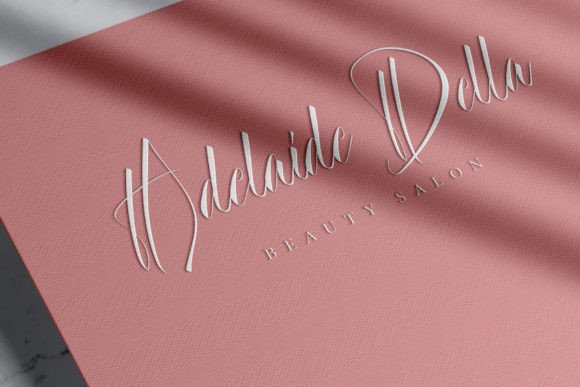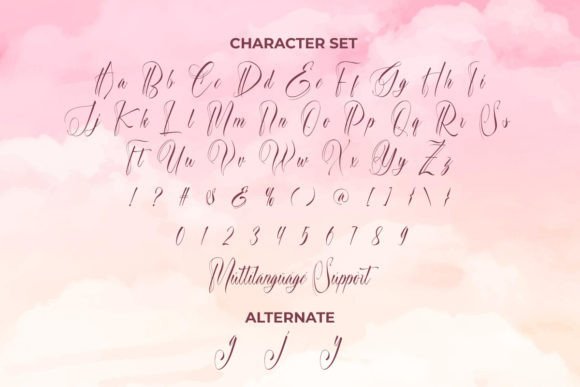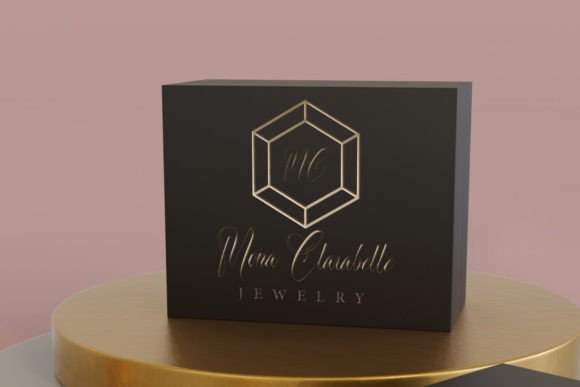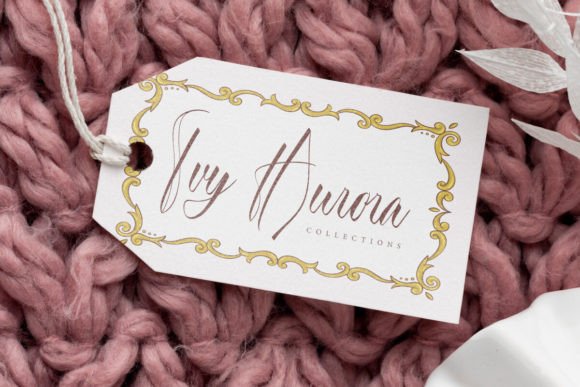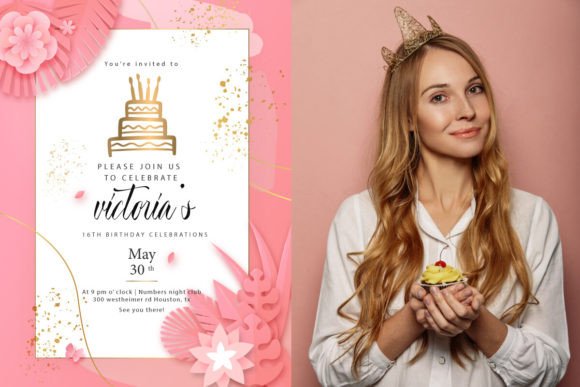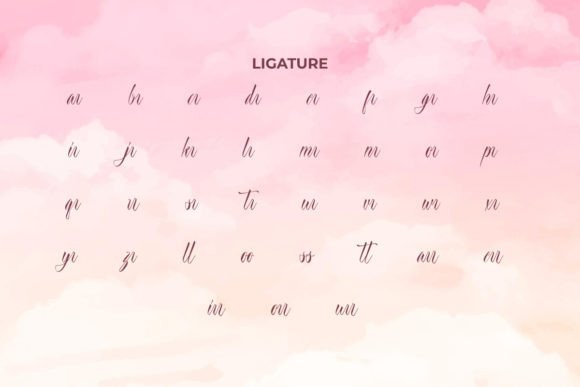
Introducing Beauty Princess Font: The Royal Treatment for Your Brand
Are you searching for a font that exudes elegance, sophistication, and a touch of royalty? Look no further than the Beauty Princess Font. This stunning script font is carefully crafted to provide a stylish and luxurious feel, making it perfect for a wide range of industries and applications.
The Beauty Princess Font: A Royal Heritage
The Beauty Princess Font is a beautiful script font that boasts a stylish and royal touch. Its carefully crafted design creates an almost flawless typeface, perfect for adding a touch of luxury to any brand or project. The font’s radiant princess aura makes it suitable for a diverse range of industries, including:
- Accessories
- Beauty clinics
- Boutiques
- Cosmetics
- Event organizers
- Fashion
- Florists
- Furniture
- Homeware
- Interior design
- Jewelry
- Perfume brands
- Printing
- Publishing
- Restaurants
- Skincare
- Spa salons
- And many more
Unleash Your Creativity with Beauty Princess Font
As a designer or crafter, you’re constantly on the lookout for unique and captivating typography to elevate your work. The Beauty Princess Font offers a world of creative possibilities, allowing you to add a touch of sophistication and glamour to your projects. Whether you’re designing a logo, brochure, or website, this font is sure to make a lasting impression.
Key Features of Beauty Princess Font
So, what makes the Beauty Princess Font so special? Here are just a few of its key features:
- Stylish and royal touch: The Beauty Princess Font boasts a stylish and royal touch, perfect for adding a touch of luxury to your brand or project.
- Carefully crafted design: The font’s design is carefully crafted to create an almost flawless typeface, ensuring a smooth and elegant reading experience.
- Radiant princess aura: The font’s radiant princess aura makes it suitable for a wide range of industries and applications.
- Versatile and adaptable: The Beauty Princess Font is versatile and adaptable, making it perfect for use in a variety of contexts, from digital media to print materials.
In conclusion, the Beauty Princess Font is a stunning script font that offers a stylish and royal touch, perfect for adding a touch of luxury to any brand or project. Its carefully crafted design, radiant princess aura, and versatility make it suitable for a wide range of industries and applications. Whether you’re a designer or crafter, this font is sure to inspire your creativity and help you create something truly special.